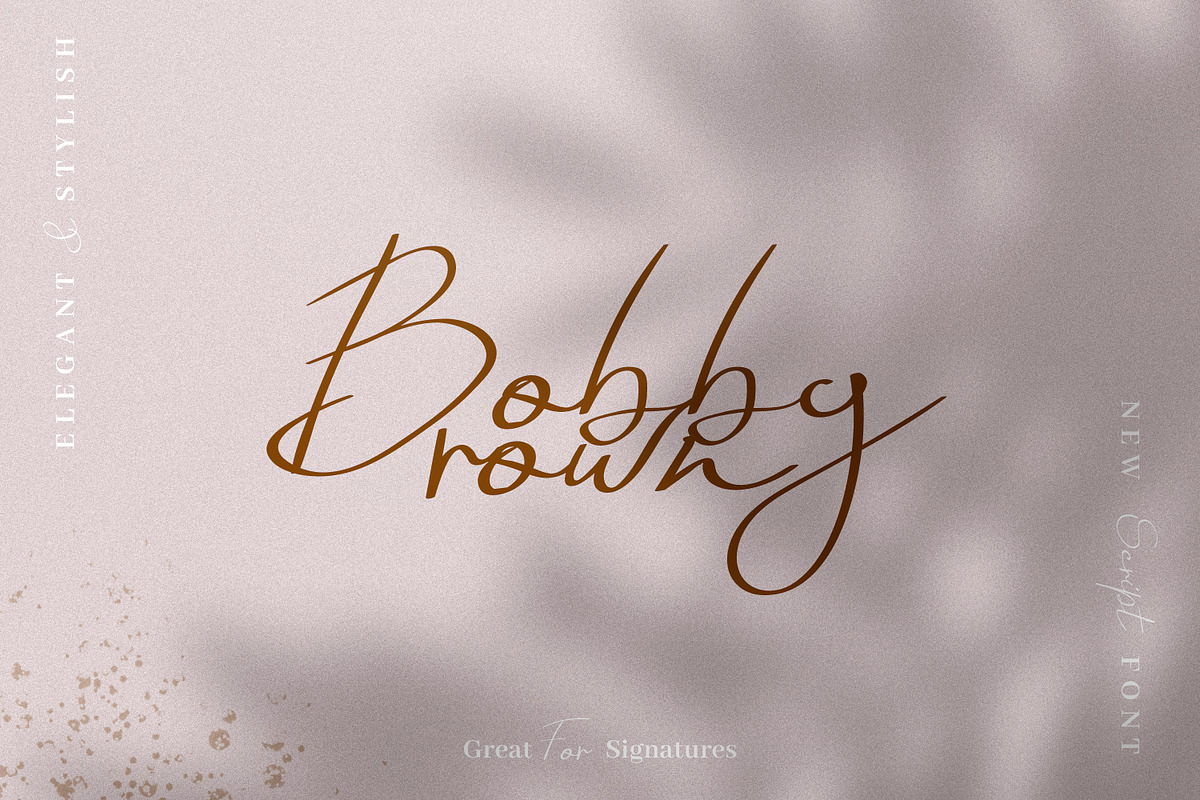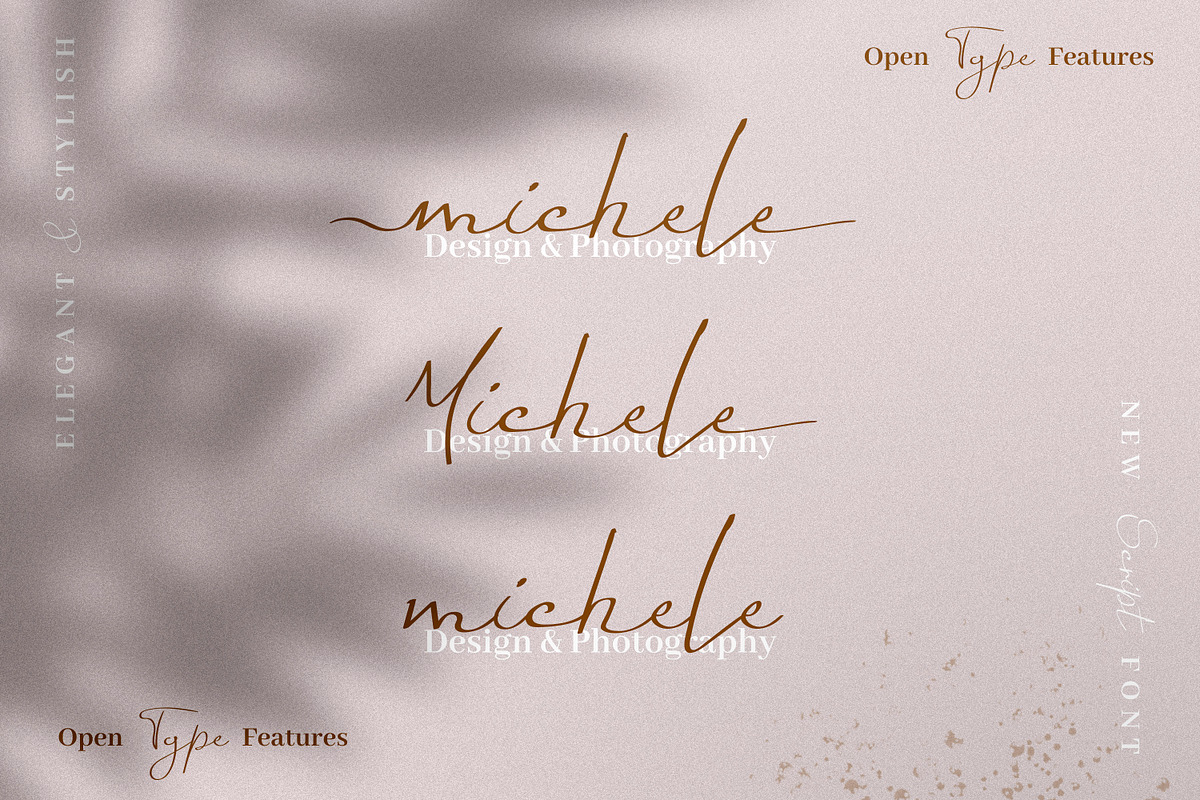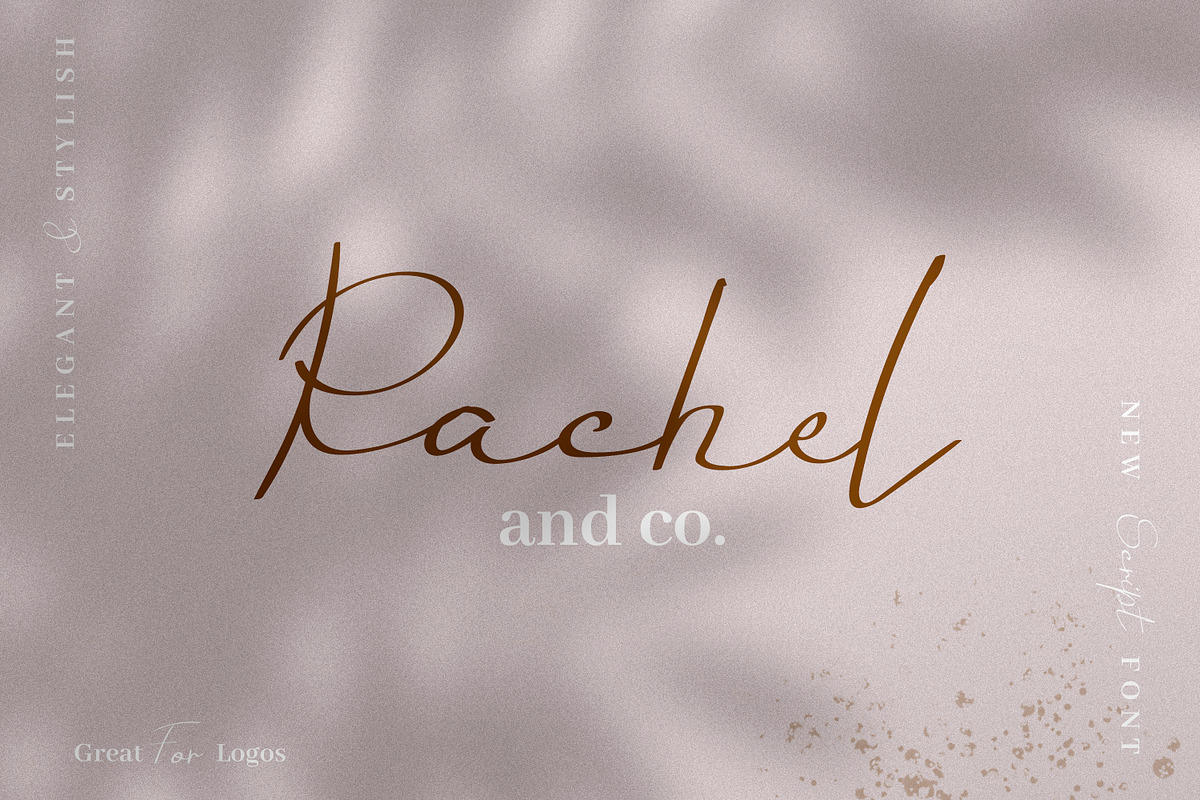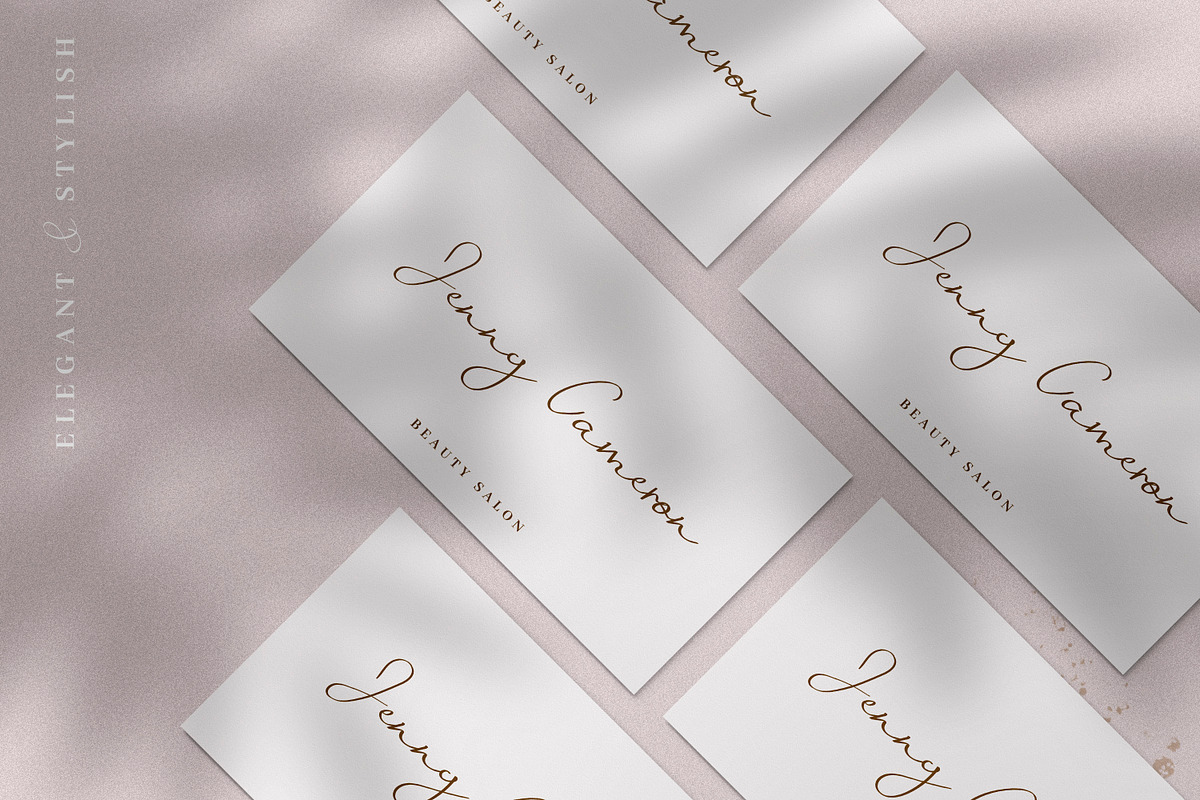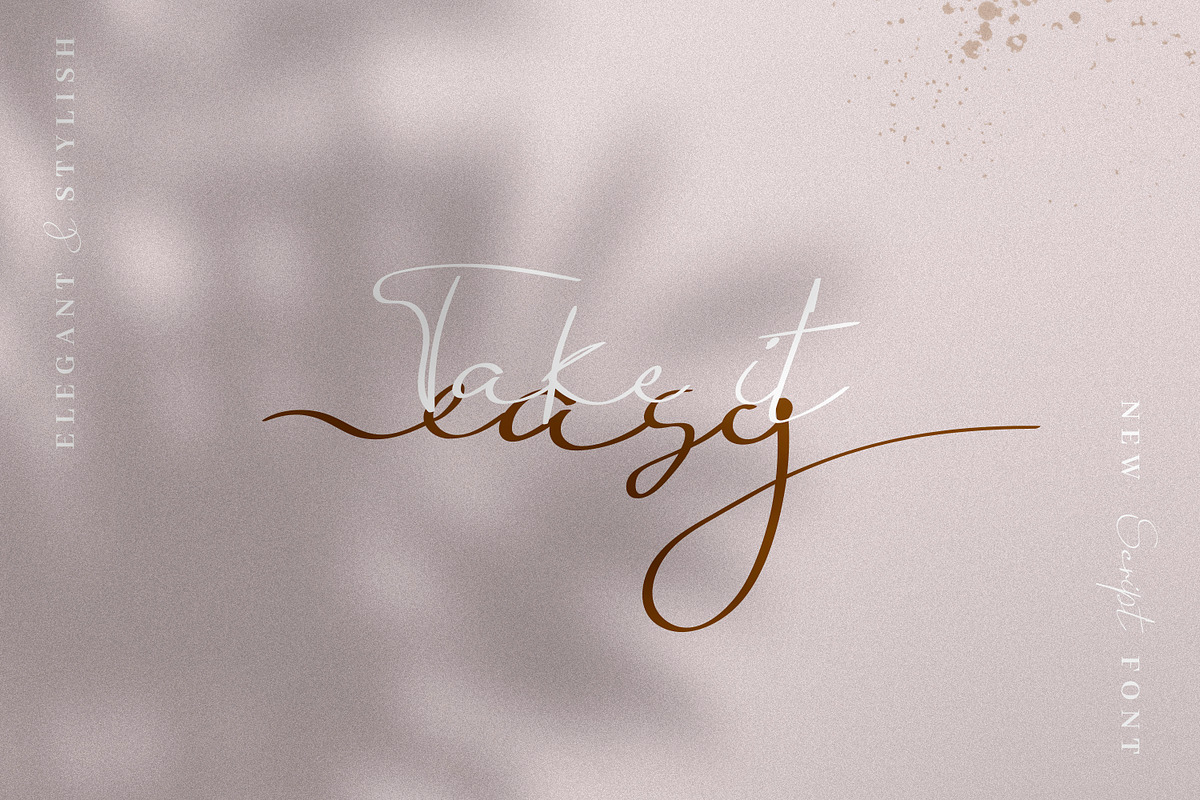
Sunday Sunshine - Handwritten Script
Introducing Sunday Sunshine - An Elegant and modern Script font.
This font is designed for logos, headlines, quotes, invitations, cards and so much more. It has a slight rustic and authentic handmade vibe to it's look.
It's also perfect for all kinds of DIY craft projects and for Circuit cutting machines.